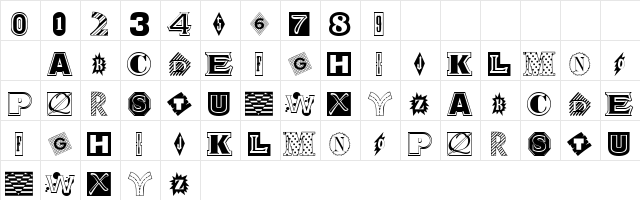
101! Mix 'n Match Regular
Design Context for 101! Mix 'n Match
101! Mix 'n Match is a composed and adaptable typeface that performs quietly and consistently across a wide range of design contexts.
Pro Tip: Use 101! Mix 'n Match in both headline and body roles to test its range before committing to a single application.